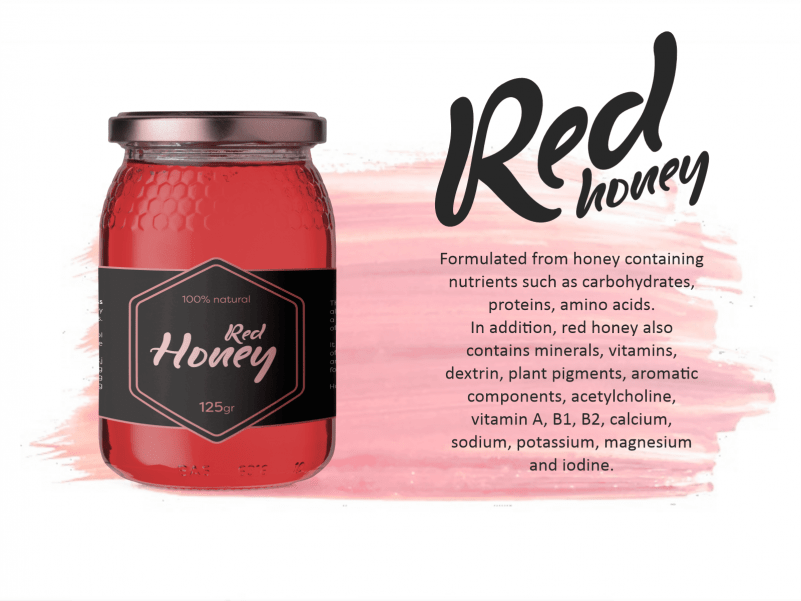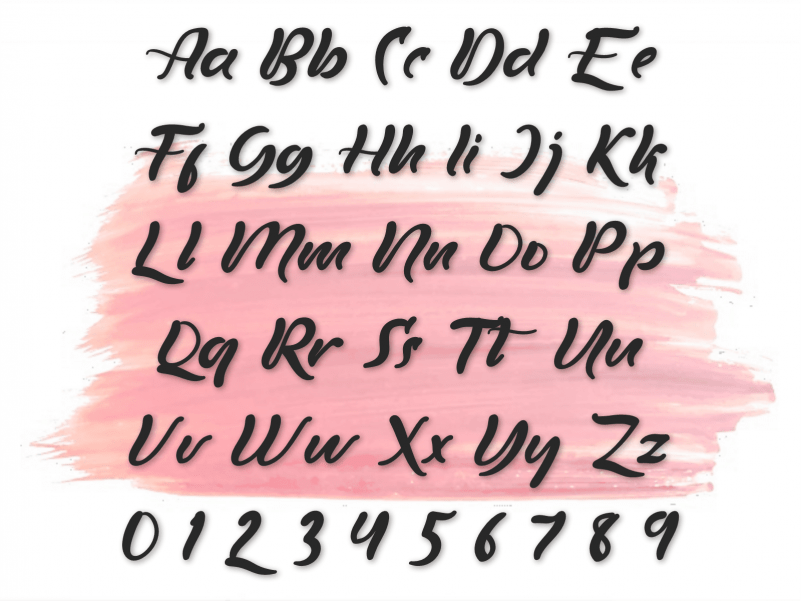
Royken Brush Font
This is a lovely, paint brushed handwritten font. Dainty and joyful, this font will be ideal for writing wedding invitations, cards or any other design that may need a romantic, personalized touch!